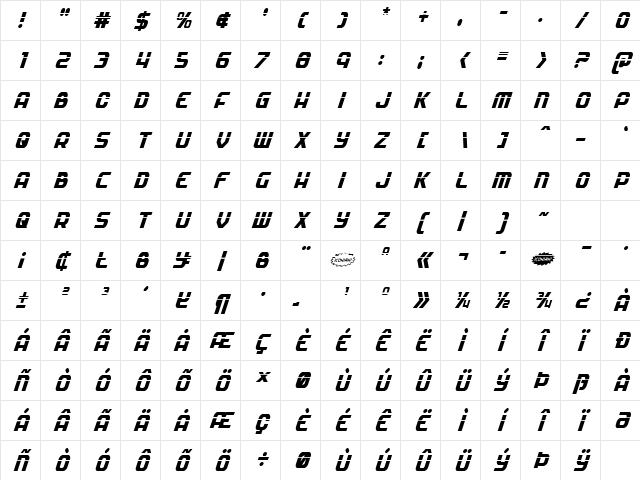
Complete Soldier Laser Condensed Italic glyph index. Displaying only characters natively supported by Soldier Laser Condensed Italic font.
Soldier Laser Condensed Italic has the no-nonsense character of military stencilling and tactical signage, projecting authority and directness. The slanted form adds forward momentum and visual energy. Its narrow stance lets it pack a punch even in space-constrained designs.
A strong choice for security brands, outdoor gear, and high-stakes visual communication.